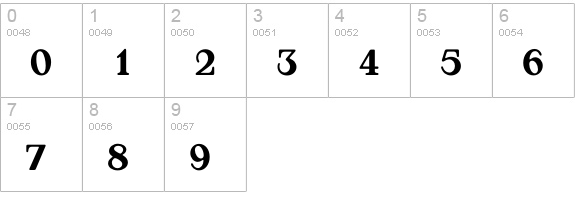
AppleyardMediumTab Font Details
AppleyardMediumTab is a stunning and versatile font that combines elegance with modernity. Its medium weight strikes the perfect balance, making it suitable for a wide range of design projects. This font features clean lines and a timeless appeal that will elevate any text or graphic it is used with. AppleyardMediumTab is available for free download at FontsMarket.com, where designers and enthusiasts alike can access this beautiful font to enhance their creations. With its classic yet contemporary style, AppleyardMediumTab is sure to make a lasting impression in any design setting.